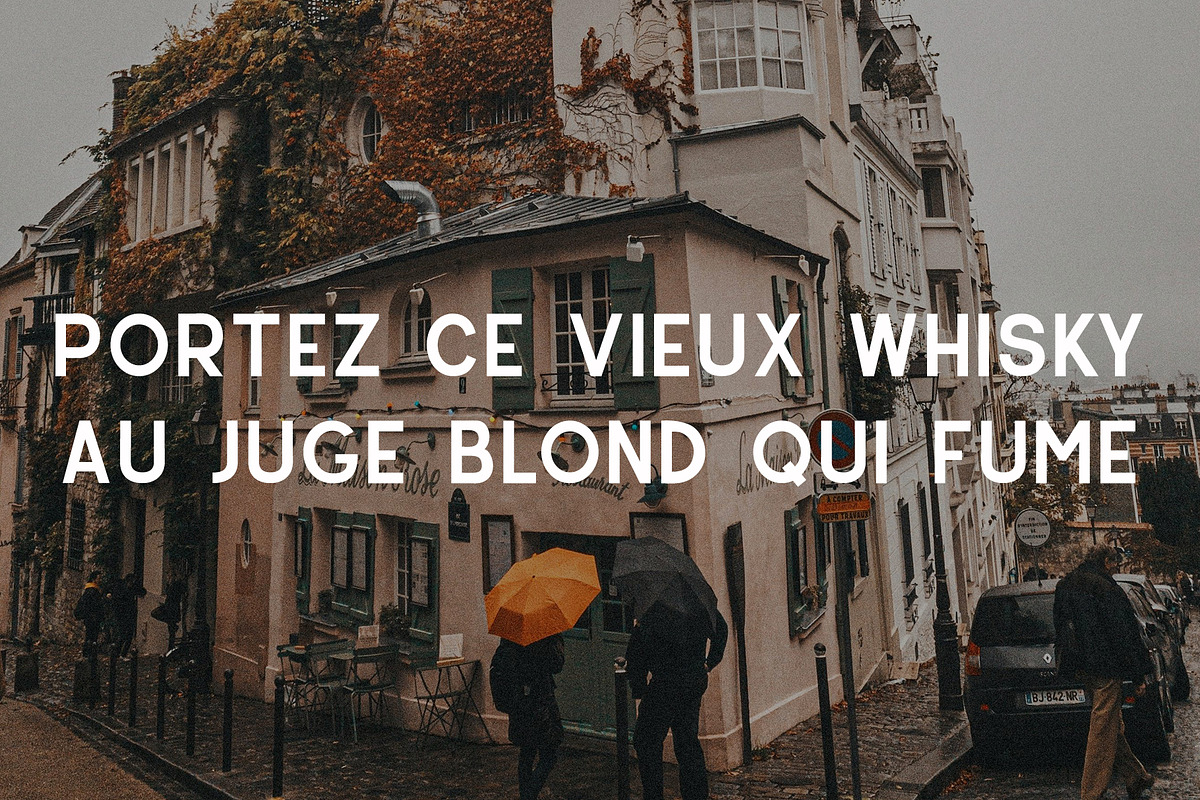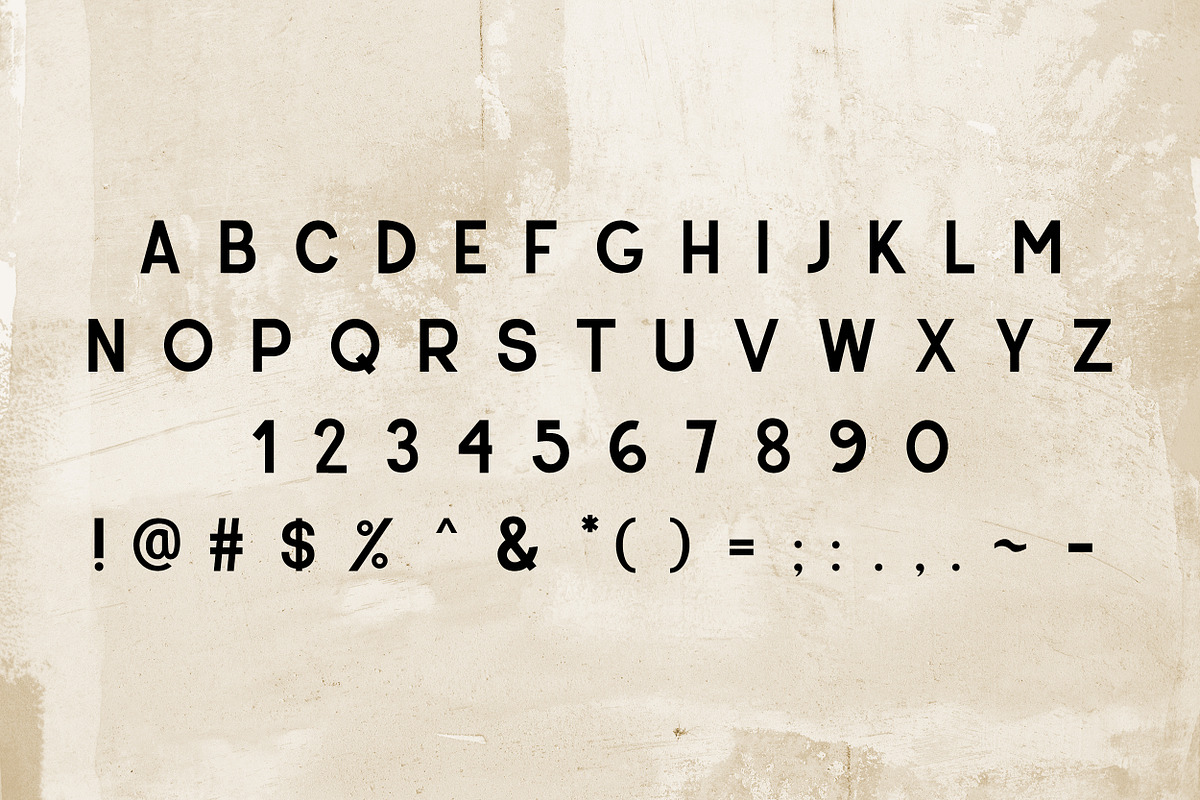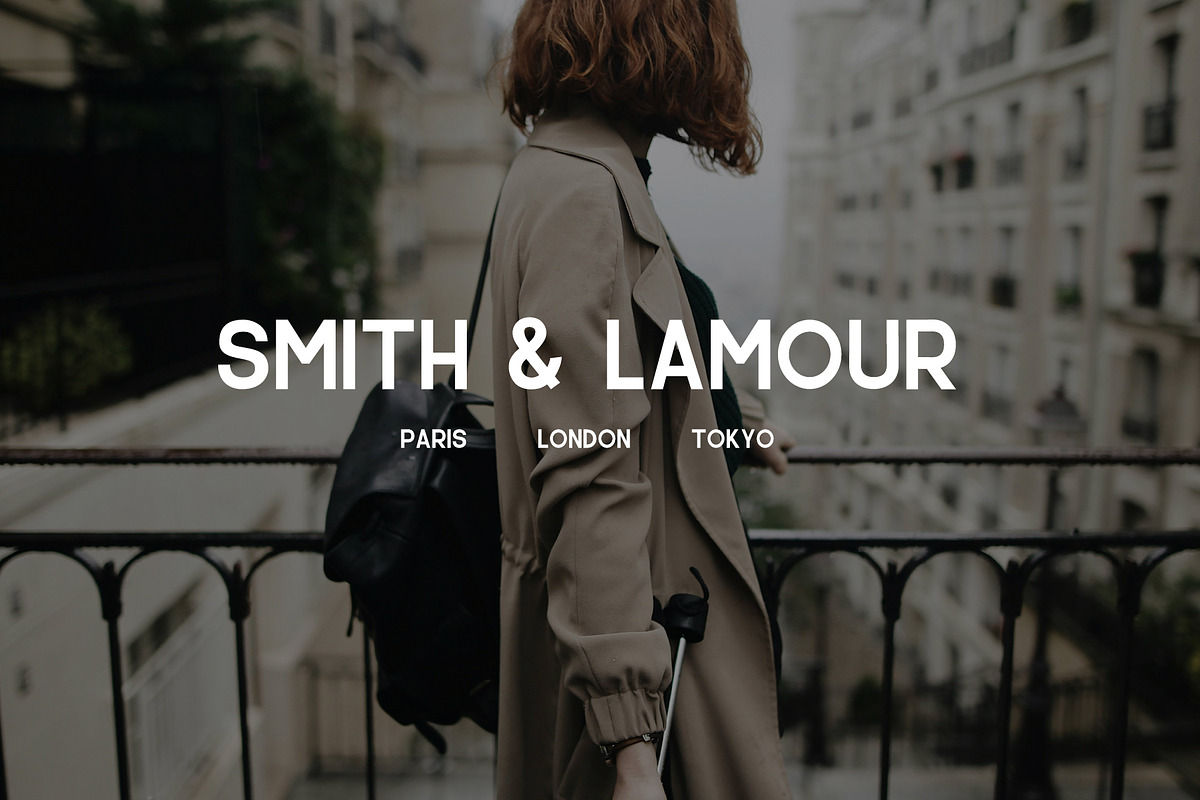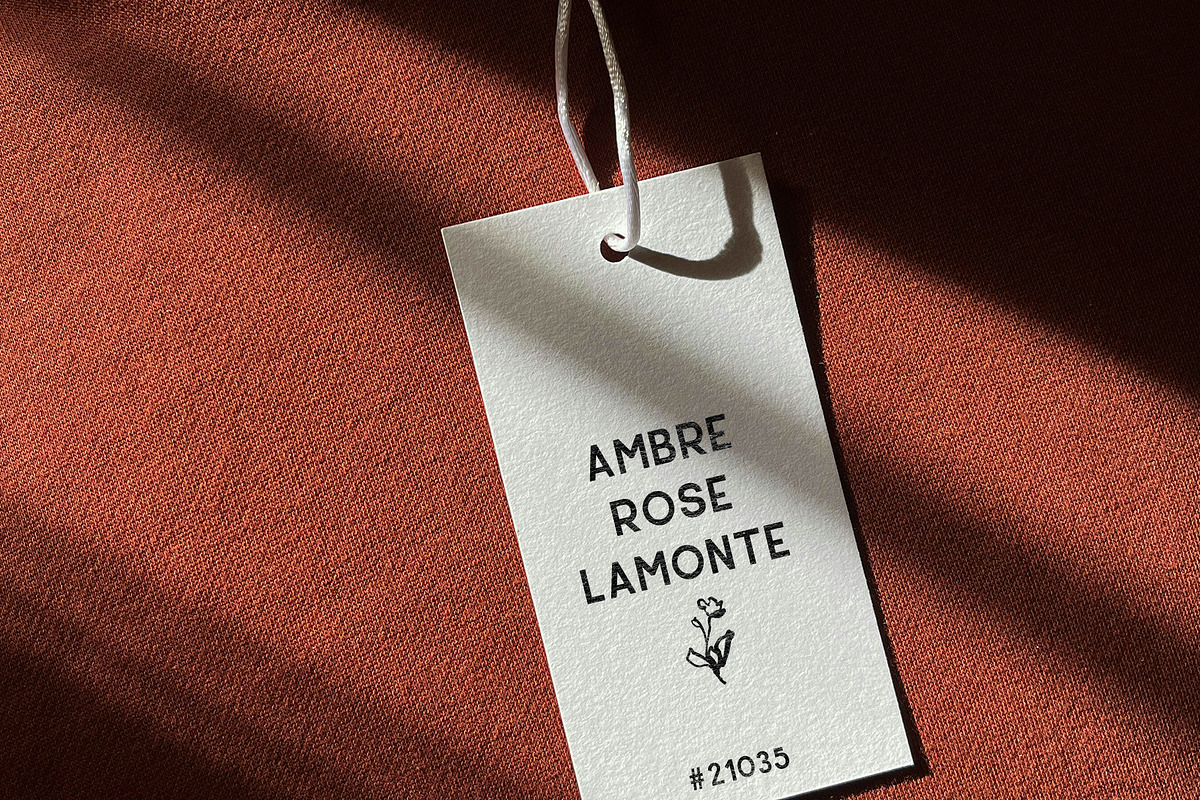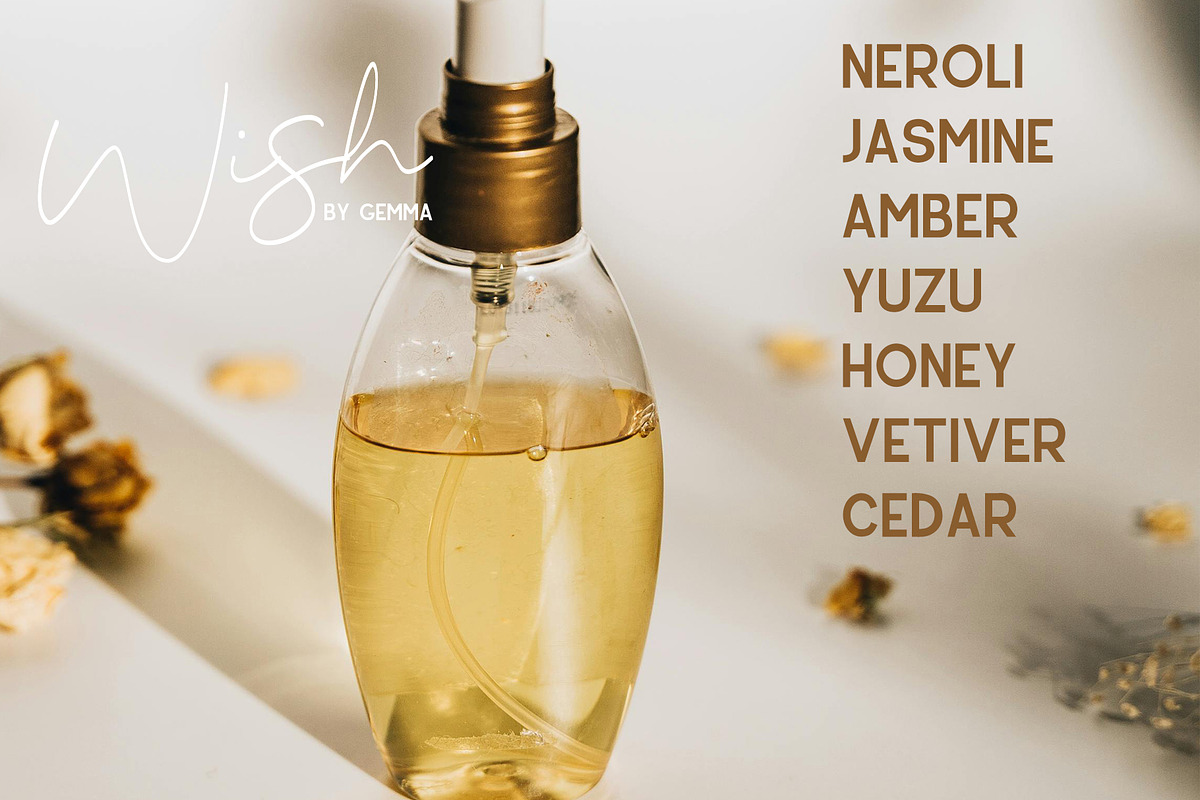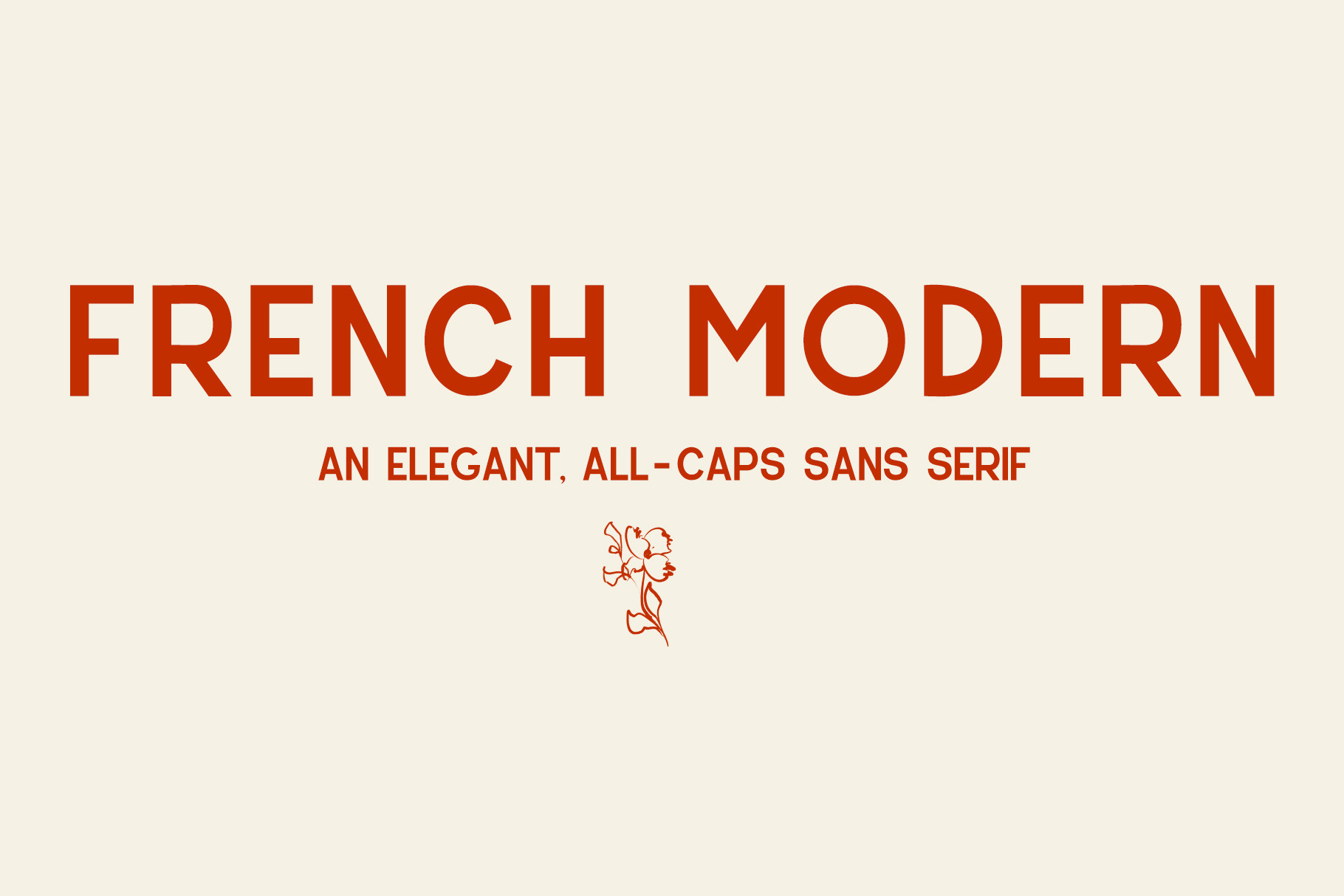
French Modern - A sans serif font
French Modern is a classy, modern, all-caps sans serif with a quiet nod to the elegance of the 1920s. Designed to feel both timeless and current, this typeface blends clean geometry with subtle vintage details, resulting in a font that’s confident, stylish, and versatile.
With sturdy letterforms and softened curves, French Modern brings a sense of warmth and character without sacrificing readability. The small, carefully considered details add just enough Art Deco influence to set it apart, making it perfect for designers who want something classic—but not predictable.
French Modern works beautifully across a wide range of projects, from branding and packaging to editorial layouts, logos, social media graphics, and headlines. It pairs effortlessly with serif fonts for a refined look or stands strong on its own for bold, modern statements.
-Brand identities -Logos & wordmarks -Packaging & labels -Editorial design -Posters & headlines -Social media & digital graphics